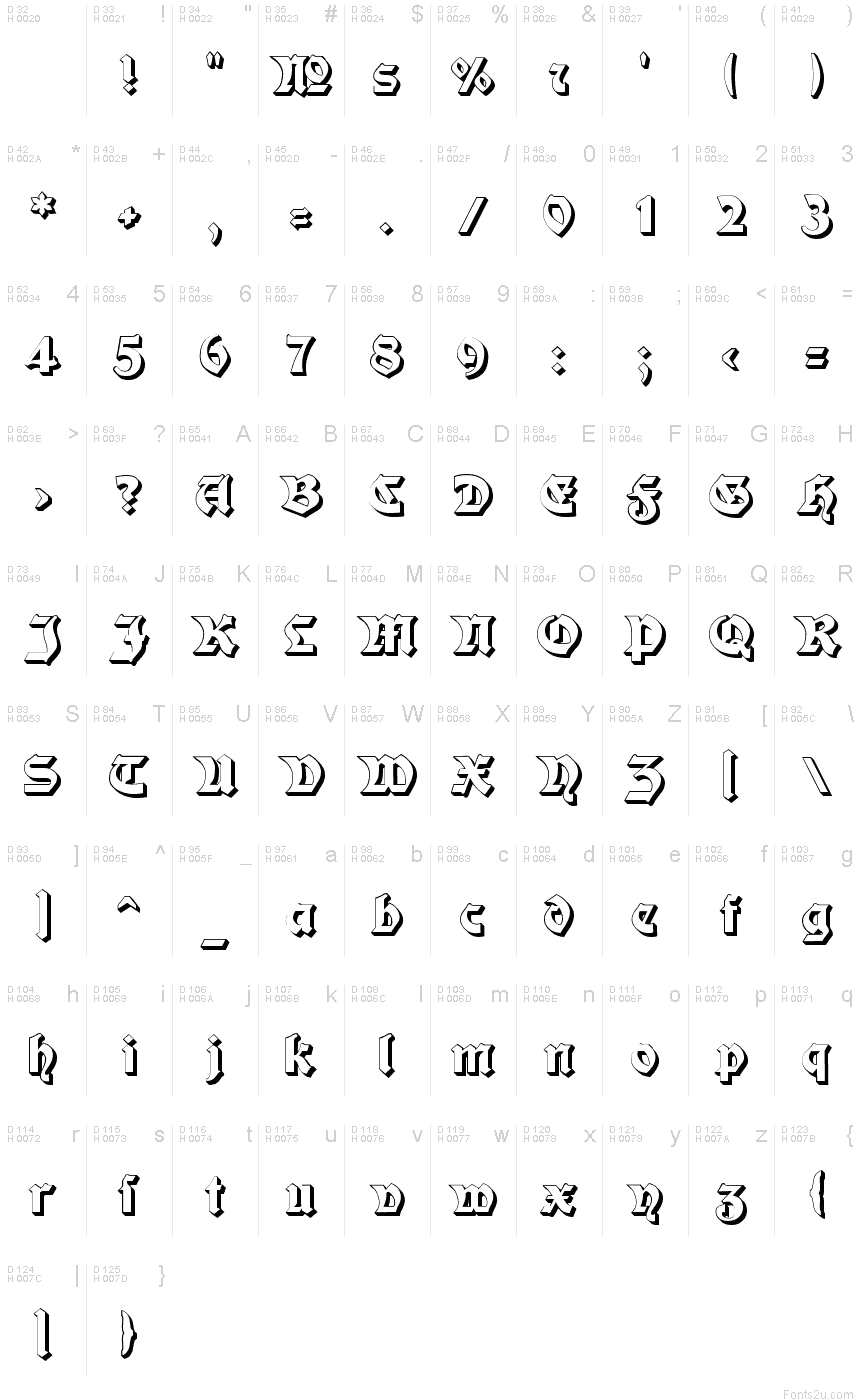
Moderne 3D Schwabacher by Peter Wiegel is a free three-dimensional blackletter display font with broad, irregular forms and sharply cut edges. Deep offset shadows turn the letters into block-like shapes.
Its theatrical weight can suit both historical games and contemporary streetwear, linking old German lettering with graphic, poster-like impact. Music posters, merchandise, and festival branding also benefit from the forceful silhouette and carved-looking depth. In each setting, the shadowed letters can become part of an emblem or product identity rather than mere decoration.